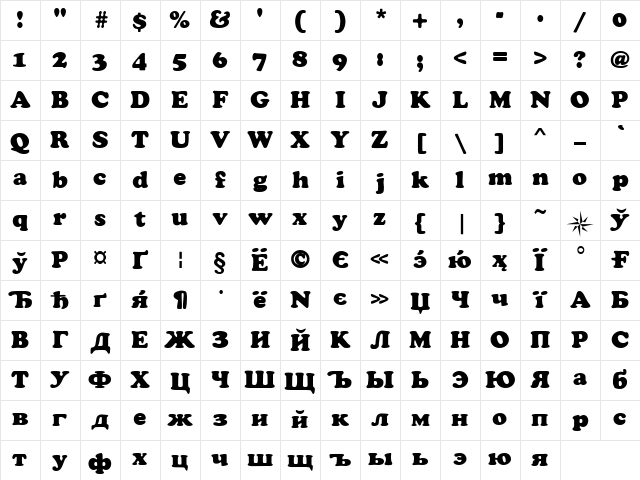
CyrillicCopper Medium
Complete CyrillicCopper Medium glyph index. Displaying only characters natively supported by CyrillicCopper Medium font.
Design Context for CyrillicCopper
CyrillicCopper is a composed and adaptable typeface that performs quietly and consistently across a wide range of design contexts.